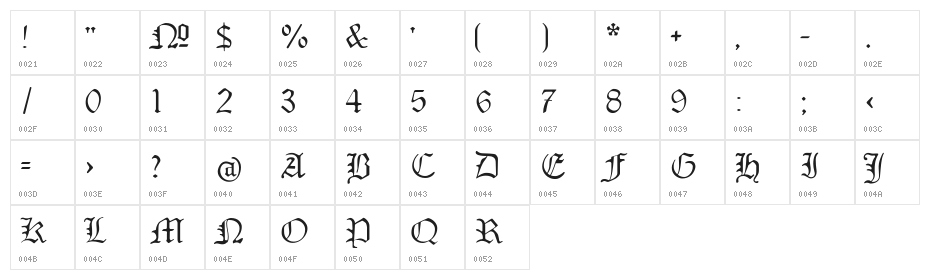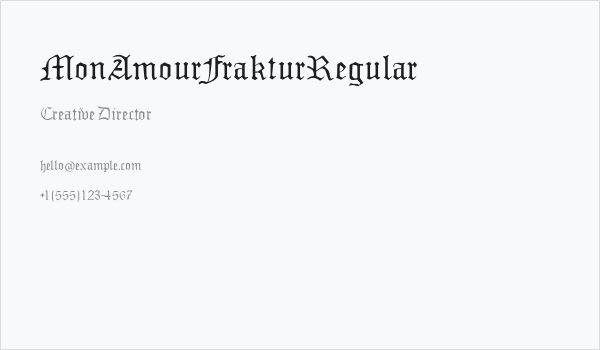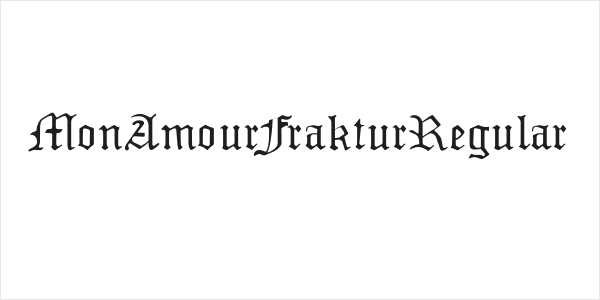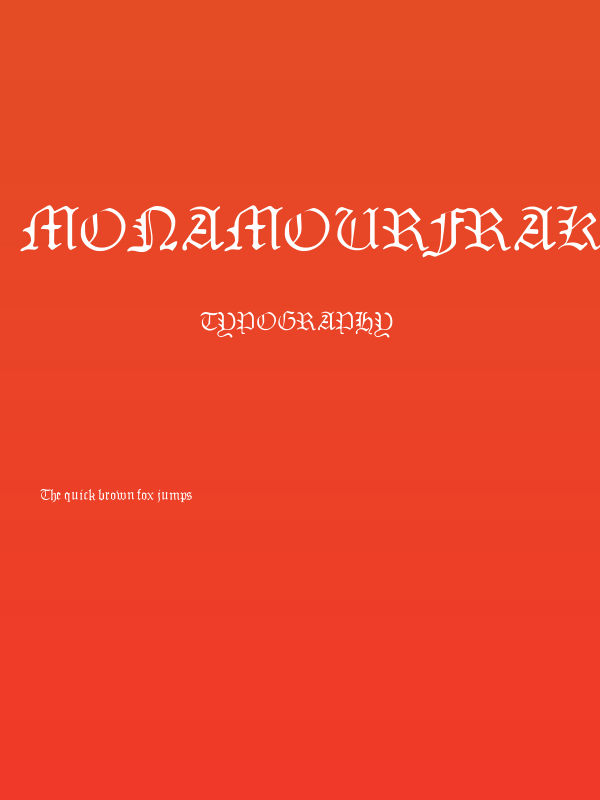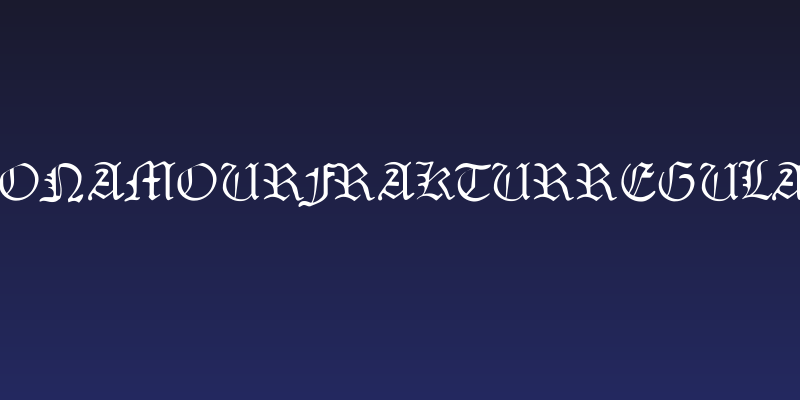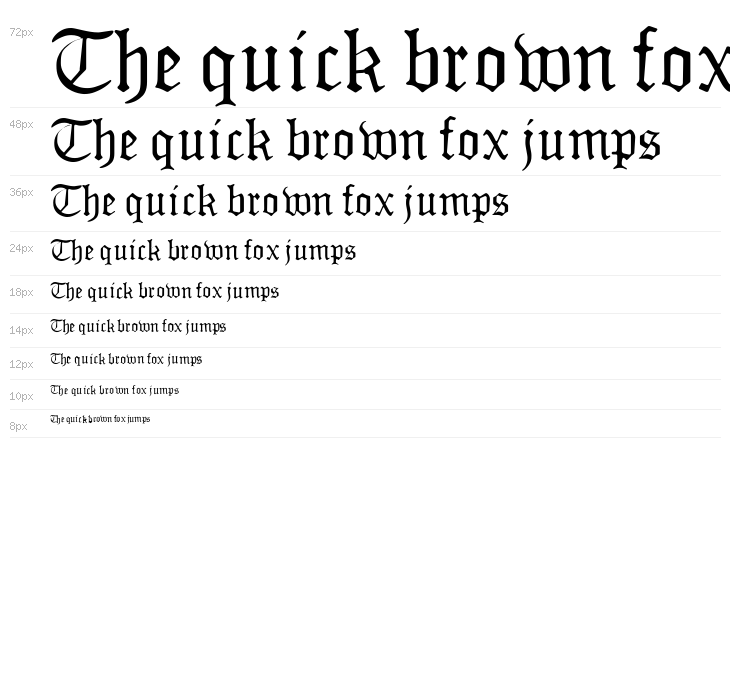
MonAmourFrakturRegular Font
MonAmourFrakturRegular Description
This font is a classic example of Blackletter style, characterized by its intricate and ornate letterforms. The uppercase letters exhibit sharp, angular lines with decorative flourishes, while the lowercase letters maintain a consistent style with slightly more rounded edges. The numerals are bold and distinct, matching the overall aesthetic of the font. Special characters are designed with the same attention to detail, ensuring a cohesive look across all glyphs. This font evokes a sense of tradition and history, often associated with medieval manuscripts and Gothic architecture.
| Proposed Projects | Ideal for historical documents, wedding invitations, certificates, and branding that requires a vintage or Gothic touch. |